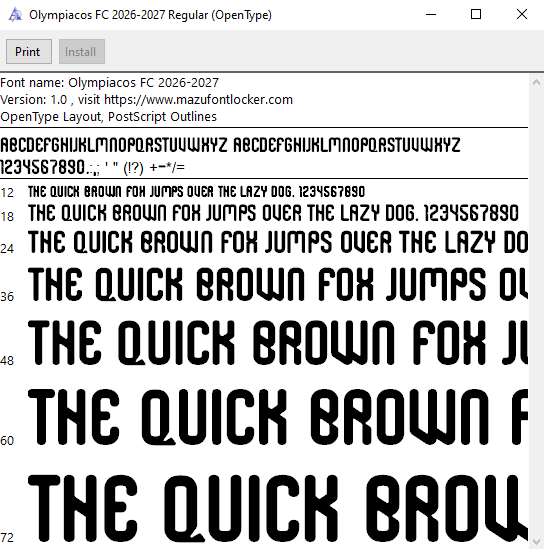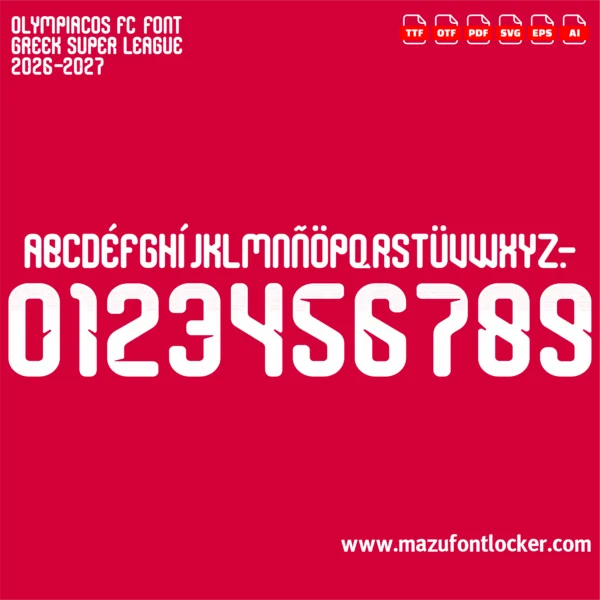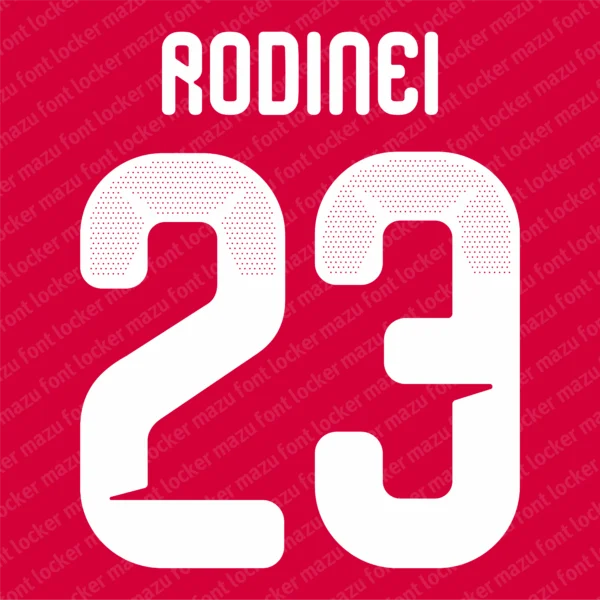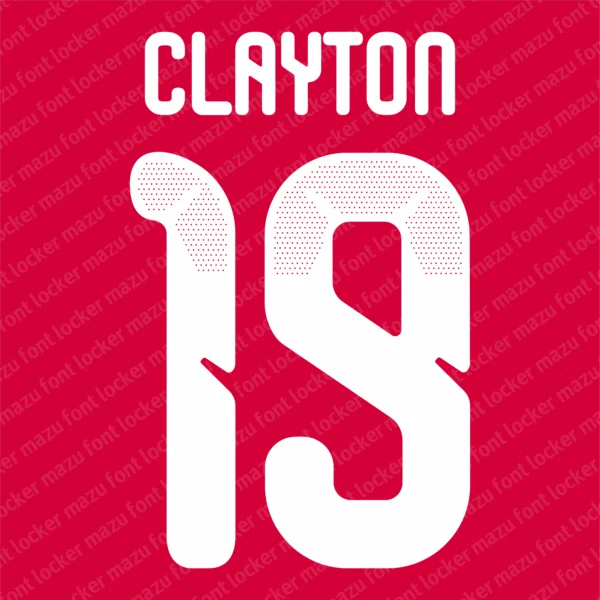
Olympiacos FC 2026-2027 Font Vector – Epic Red Thunder Masterpiece
Olympiacos FC 2026-2027 Font Vector – Authentic Olympiacos Typeface
The Olympiacos FC 2026-2027 Font Vector is a premium typeface that accurately recreates the official match lettering worn by Olympiacos FC during the 2026-2027 season. This high-quality vector font kit captures the bold, fiery, and passionate typography that represents the rich heritage, intensity, and red pride of the club.
This font stands out because of its sharp vector precision and strong club identity. Every letter and number is crafted to match the exact style used on the players’ shirts during the 2026-2027 season. Whether you are making realistic kit templates or exciting Olympiacos content, the Olympiacos FC 2026-2027 Font Vector gives your designs that authentic Greek red look.
The letterforms in the Olympiacos FC 2026-2027 Font Vector are tall, bold, and highly readable. The strokes have a strong, clean weight with excellent edge definition that looks powerful on the back of jerseys while maintaining classic Greek heritage and modern sporting elegance.
• Full uppercase A–Z and numbers 0–9 in authentic Olympiacos FC 2026-2027 style